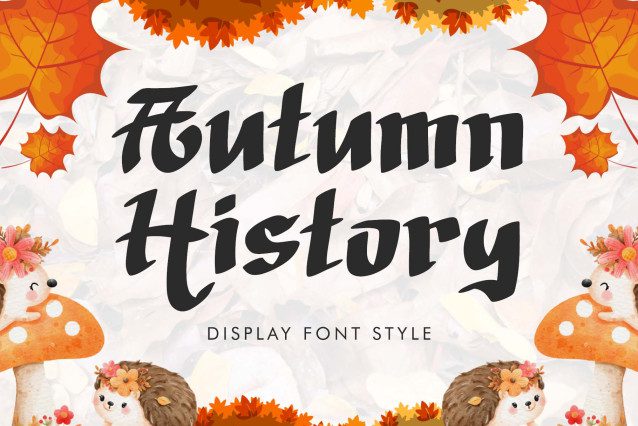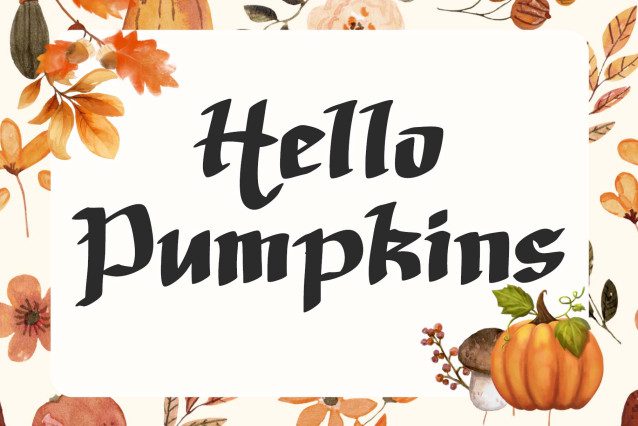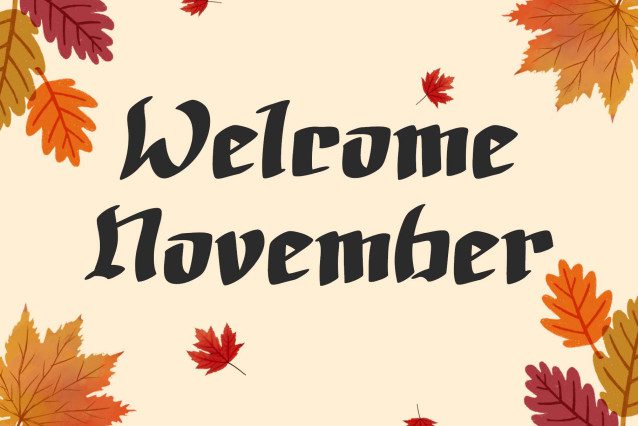
Autumn History Font
“Autumn History” is a cute and unique display font. It features uppercase and lowercase letters, numerals, punctuation, and multilingual support. It’s perfect for Christmas, Halloween, autumn, print, banners, posters, branding, stickers, gifts, invitations, winter, vacation, holiday, spring, summer, weddings, photography, mockups, t-shirts, and more.